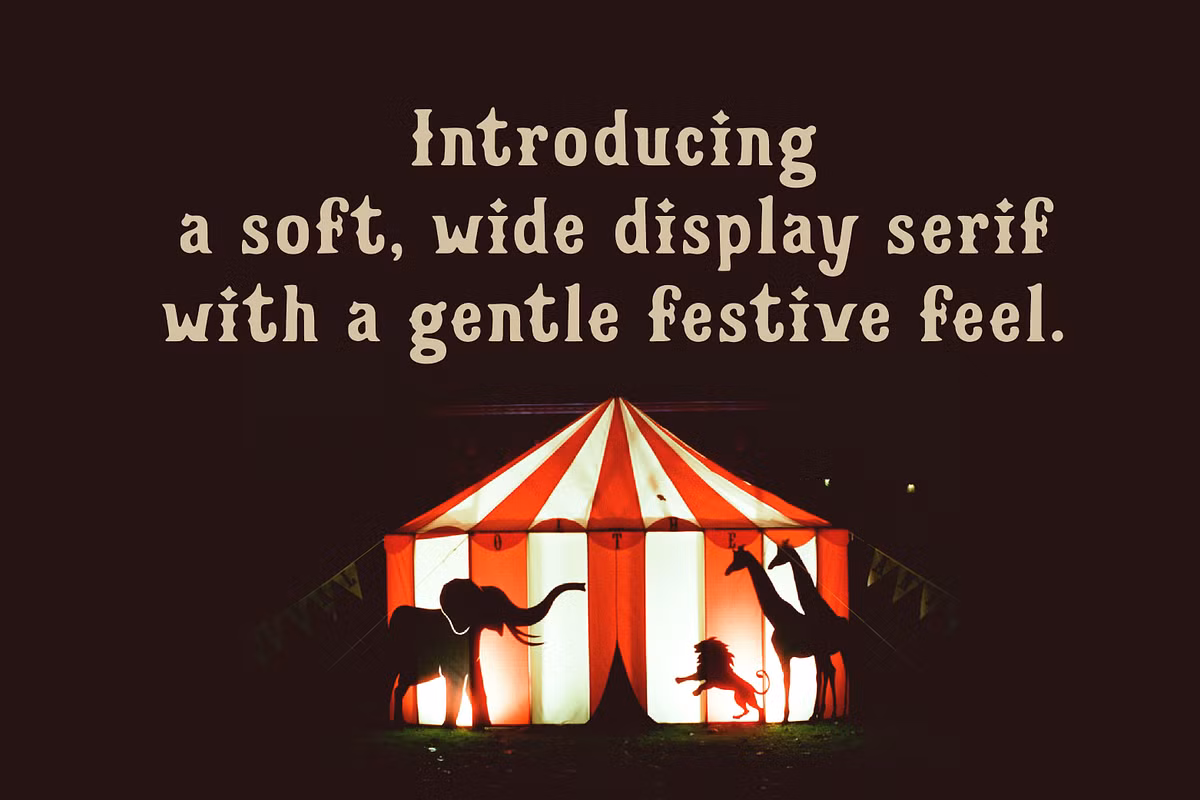
Petit Carnaval Soft Circus Serif: Charming Display Font for Branding and Design
Meet Petit Carnaval, a beautiful, soft font with a wide and elegant design. It’s inspired by the classic lettering you’d see at a carnival, but it’s been updated to feel calm and modern. What makes this font special is its subtle, rounded shapes and the way it seems to flow smoothly, creating a warm and inviting atmosphere. This makes it perfect for using in branding, packaging, and editorial projects where you want to add a touch of personality and coziness. Petit Carnaval is all about conveying a sense of friendliness and approachability, making it a great choice for designs where you want to connect with your audience on a more personal level.
Design Style of Petit Carnaval
The look of Petit Carnaval is playful and easy to like. It gets its ideas from old carnival signs, but it’s been updated to fit in with modern styles. The letters have soft, rounded edges that make you feel cozy and welcome, rather than hitting you with something too bold or flashy. This makes the design feel friendly and approachable, like it’s inviting you to come and have a look. The overall feel is lighthearted and fun, which is just what you’d want from a carnival-themed design.
Petit Carnaval has a special feel to it, great for projects that need a bit of fun without going over the top. The letters are nice and wide, so they’re easy to read, whether you’re using them online or in print. This mix of playfulness and elegance makes Petit Carnaval a top pick for designers and artists who want to add some personality to their work.
Character Sets and Language Support
Petit Carnaval has a big collection of characters that work with many languages that use Latin letters. This means you can use the font in lots of different languages, which is really helpful for companies that want to reach people all around the world. It’s great for making brands and marketing materials that need to be used in many different countries.
This font has a wide range of characters, including big and small letters, numbers, punctuation marks, and special characters. This means you can use it to create lots of different things, like logos, invitations, and labels, and still have plenty of options to make them look unique. The font’s soft, curvy shape and friendly feel make each character look nice and welcoming, which adds to the overall look and feel of your design. You can use it to make your work look more approachable and engaging. The variety of characters and the font’s style give you the freedom to be creative and make your designs stand out.
Use Cases for Petit Carnaval
Petit Carnaval is a really versatile font that can be used in many different ways. Let’s take a look at some examples of where it works really well:
- Branding: Create memorable logos that resonate with customers by incorporating Petit Carnaval. Its warm and inviting nature helps establish a connection with your audience.
- Packaging: Petit Carnaval can make your packaging really special, whether it’s for food, crafts, or things that make life more fun. They add a little something extra that makes your stuff stand out when it’s on store shelves.
- Editorial Designs: Use the font in magazines, brochures, or online articles where a friendly tone is beneficial. It complements lifestyle content beautifully.
- Posters and Invitations: The festive character of Petit Carnaval is perfect for event invites, celebrations, and promotional posters, bringing a sense of joy to your messaging.
- Blogs: Enhance your blog’s visual identity with Petit Carnaval, creating a cohesive and inviting reading experience for your audience.
Pairing Suggestions for Petit Carnaval
Petit Carnaval is really good at working with other fonts, which makes your designs look great and interesting. Here are a few ideas for pairing it with other typefaces:
- The Quiet Attempt Love Handwritten Font: A great match for Petit Carnaval, it adds a personal feel to your work.
- Simple Modern Fonts: Pairing Petit Carnaval with a simple, modern font that doesn’t have serifs can make your text easier to read and give it a fresh look.
- Traditional Serif Fonts: Matching Petit Carnaval with a traditional serif font, such as Playfair Display, creates a refined and elegant appearance.
Petit Carnaval is not just a font, it’s a whole design tool that adds a personal touch to your projects. It’s great for making your branding and designs feel more special and fun. The font has a lot of characters and can be used in many different ways, making it perfect for creating content that people will remember. You can use it for packaging, logos, or editorial designs – it’s a great choice because it’s friendly and stylish at the same time. This makes it a really useful tool for any designer to have.